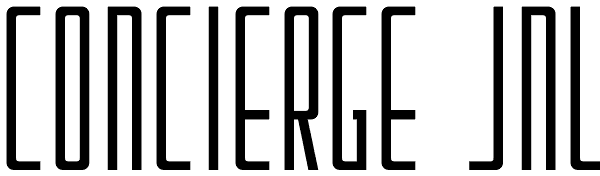
Concierge JNL
On occasion, one type design's influence can result in a completely different end result. Take the hand lettering found on a 1920s piece of sheet music for the song "Let Me Call You Sweetheart". The simple sans with a few Art Nouveau-inspired...